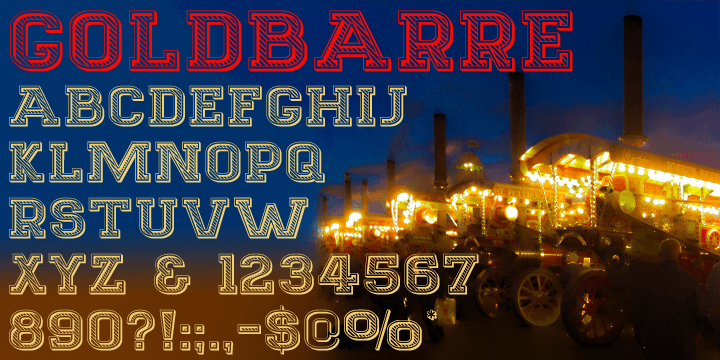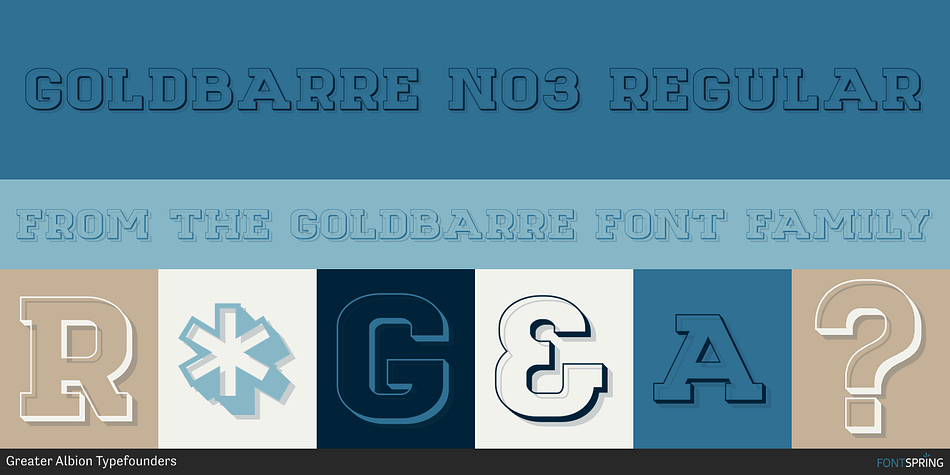
GOLDBARRE NO3 REGULAR
Goldbarre is a western font family. This typeface has four styles and was published by Greater Albion Typefounders.
Goldbarre is a finely engraved slab serif face in the spirit of
Goldbarre is a finely engraved slab serif face in the spirit of ‘between the wars’ commercial confidence.  It’s a solid and dependable face of distinction for use on certificates and posters which need to convey an emphatic yet refined message.  The letterforms of Goldbarre combine finely hatched shading with and embossed, three-dimensional, quality.  The utility of the family is further enhanced with Goldbarre No2 - a solid shaded face, Goldebarre No3 - an open embossed face, and Goldbarre No4 - a basic black slab-serif face.